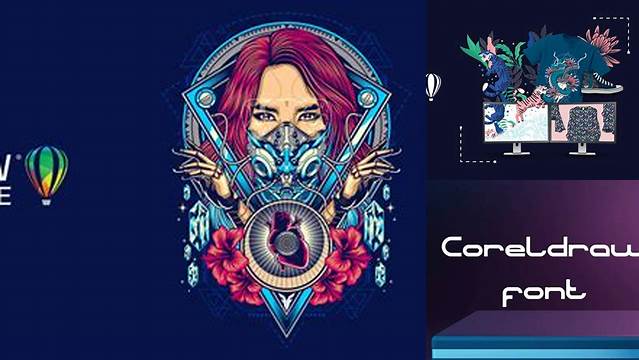
Free CorelDRAW Font Design: Your Ultimate Guide
Hey guys! Ever wanted to create your own awesome fonts? Or maybe you just want to jazz up your designs with some unique typography? Well, you're in luck! This guide is all about CorelDRAW font design free download, diving deep into how you can get started with creating amazing fonts without spending a dime. We'll cover everything from the basics of font design to where you can find free CorelDRAW font design resources. So, buckle up and let's get this font party started!
What is Font Design in CorelDRAW? And Why Should You Care?
Alright, before we dive into the nitty-gritty of CorelDRAW font design free download, let's talk about what font design actually is. Essentially, font design is the art and process of creating letterforms – the individual characters that make up a font. It's about crafting the shapes, the proportions, and the overall style of the letters, numbers, and symbols that we use every day. CorelDRAW is a powerful vector graphics software that gives you the tools to do just that, allowing you to design your own custom fonts or modify existing ones. The question is: why should you bother with CorelDRAW font design free download? Well, there are tons of reasons!
First off, having your own custom fonts can really make your designs stand out. Think about it: everyone uses the same standard fonts, right? But with custom fonts, you can create a unique brand identity or add a personal touch to your projects. Beyond that, it's an incredibly creative outlet. You get to play with shapes, experiment with different styles, and bring your own vision to life. Plus, the skills you learn in font design can be applied to other graphic design tasks, like logo creation, illustration, and more. Another point, knowing how to access resources for CorelDRAW font design free download empowers you to have more control over your creative output. You can create fonts that perfectly match your project's needs without being limited by the choices available. Plus, it can be a surprisingly rewarding experience! Seeing your own font in action, used in a design, is a really cool feeling. And for those looking to make some extra cash, you can even sell your fonts online and turn your hobby into a source of income. So, are you ready to unlock the world of custom typography?
The Significance of Typography
Typography is more than just arranging letters; it's a critical element of design, shaping how information is received and perceived. The right font can enhance readability, establish a mood, and reinforce a brand's message. Conversely, poor typography can lead to confusion and detract from the overall impact of a design. Fonts possess personality; they can be bold, elegant, playful, or serious, and they evoke different emotions and associations. The selection of a font is crucial for conveying the correct tone and establishing a visual hierarchy that guides the viewer. In today's digital world, where content is consumed rapidly, typography plays an even more critical role in capturing attention and communicating ideas effectively. Understanding typography involves appreciating the nuances of each font and the way it interacts with other design elements, such as color, layout, and imagery. Mastery of typography is a hallmark of skilled designers, enabling them to create visually compelling and impactful work. Good typography results in clear and engaging communication, whether it's a website, a poster, or a piece of print media. And understanding how to use CorelDRAW font design free download is the first step to doing this!
CorelDRAW Font Design: The Beginner's Guide
Okay, let's get you started with CorelDRAW font design free download. CorelDRAW offers several tools to create and customize fonts. Here’s a quick beginner's guide to help you: First, understand that font design involves creating individual characters and then assembling them into a full font. CorelDRAW allows you to create these characters from scratch, using its vector drawing tools. You'll typically start by drawing the letter outlines, using the Pen tool and other shape tools. Think of creating each letter as you would creating any other vector graphic. Once you have the basic outlines, you can adjust the curves, the thickness, and the overall look of each character. CorelDRAW's node editing tools give you precise control over the letterforms. After drawing your characters, you'll need to assemble them. You can use font design software, or CorelDRAW has some limited capabilities for combining characters. This process includes assigning each character a unique code point, which tells the computer which character to display when a key is pressed. You'll also need to consider spacing and kerning (the space between letters). Correct spacing and kerning are critical to create a readable and visually appealing font. CorelDRAW allows you to adjust the spacing of the characters to ensure that your font looks good at different sizes. When you are designing your font, consider factors like legibility. Make sure that each character is clearly distinguishable. Good fonts are often designed with a balance between aesthetics and functionality. Finally, learn how to install your newly designed font on your computer so that you can use it in other applications. Be patient; designing a font takes time and practice. Experiment with different styles, and don't be afraid to make mistakes. There are many free tutorials and resources to help you along the way. CorelDRAW's interface may take some getting used to, but practice is critical.
Mastering CorelDRAW's Design Tools
To effectively engage in CorelDRAW font design free download, you must become familiar with CorelDRAW's tools. The Pen tool is your primary instrument for drawing precise vector shapes and is essential for creating the letterforms. Practice drawing smooth curves and straight lines with this tool. The Shape tool allows you to modify the nodes and curves of your shapes, fine-tuning the letter designs. Experiment with different node types (smooth, symmetrical, cusp) to achieve the desired results. The Rectangle, Ellipse, and other shape tools can be used to create basic shapes, which can then be combined and modified to form more complex letterforms. Understand the use of object transformations, such as scaling, rotating, and skewing. These transformations will allow you to experiment with letter shapes, creating varied visual effects. Color is also important. CorelDRAW provides a range of color palettes and tools to apply color to your designs. Experiment with different colors and gradients. Finally, mastering tools like the Eyedropper and Interactive Fill tools can help you enhance the visual appeal of your font designs. Understanding these tools will set you on the road to CorelDRAW font design free download success.
CorelDRAW Font Design: The Advanced Techniques
Alright, so you’ve got the basics down and you're ready to level up your font design skills! Let's dive into some advanced techniques. When we think about CorelDRAW font design free download, advanced techniques might involve using more complex features of the software. One crucial technique is mastering kerning and tracking. Kerning refers to adjusting the space between individual letter pairs, while tracking affects the overall spacing of a range of letters. Fine-tuning these can make your fonts look polished and professional. You'll also want to learn about creating ligatures. Ligatures are special characters that combine two or more letters into a single glyph, like